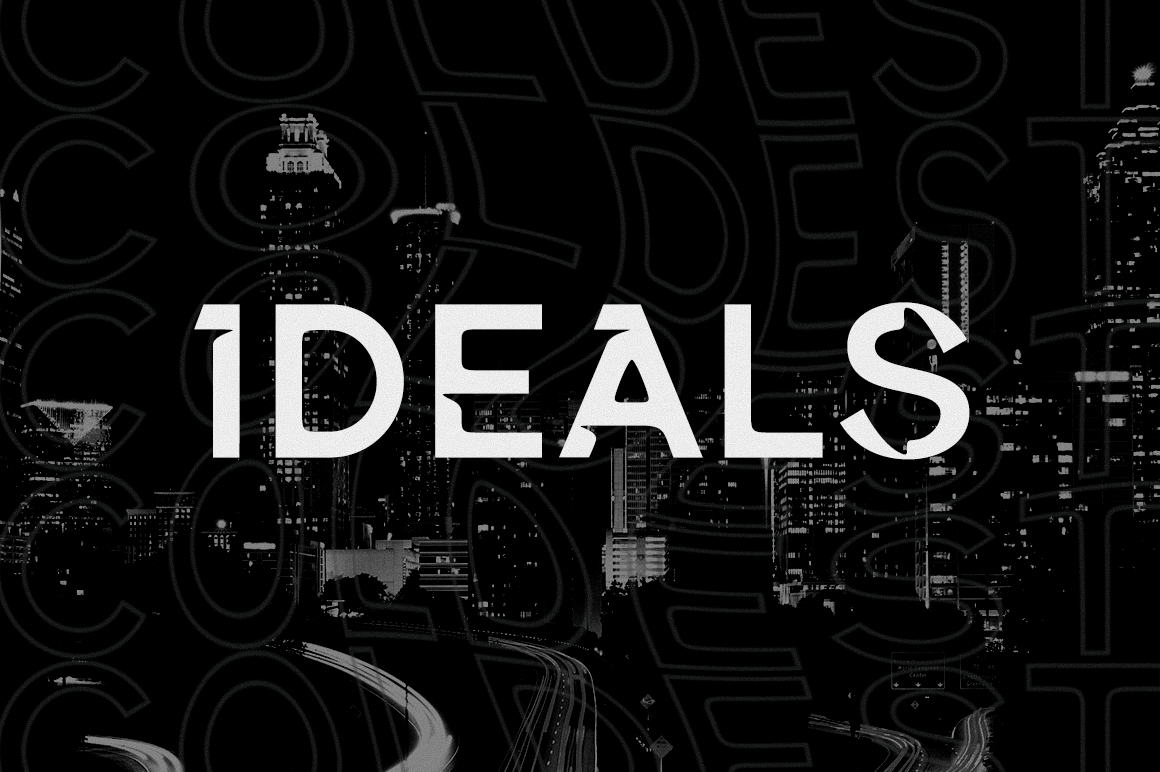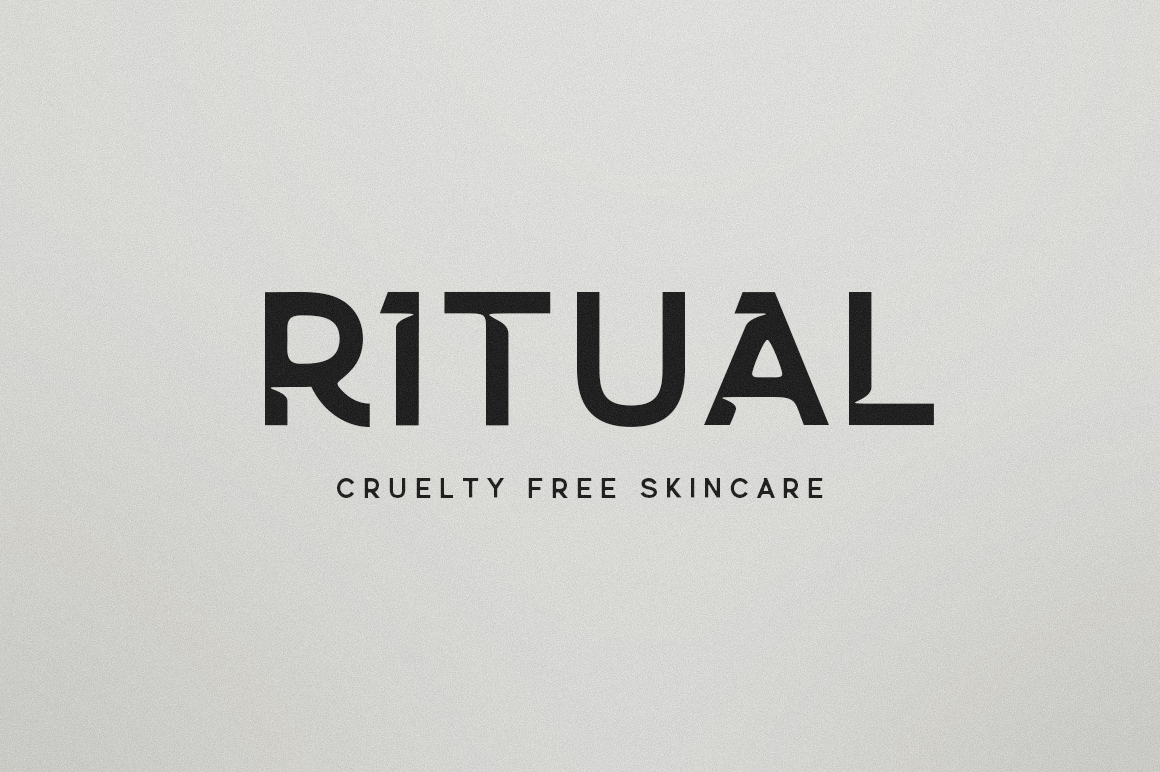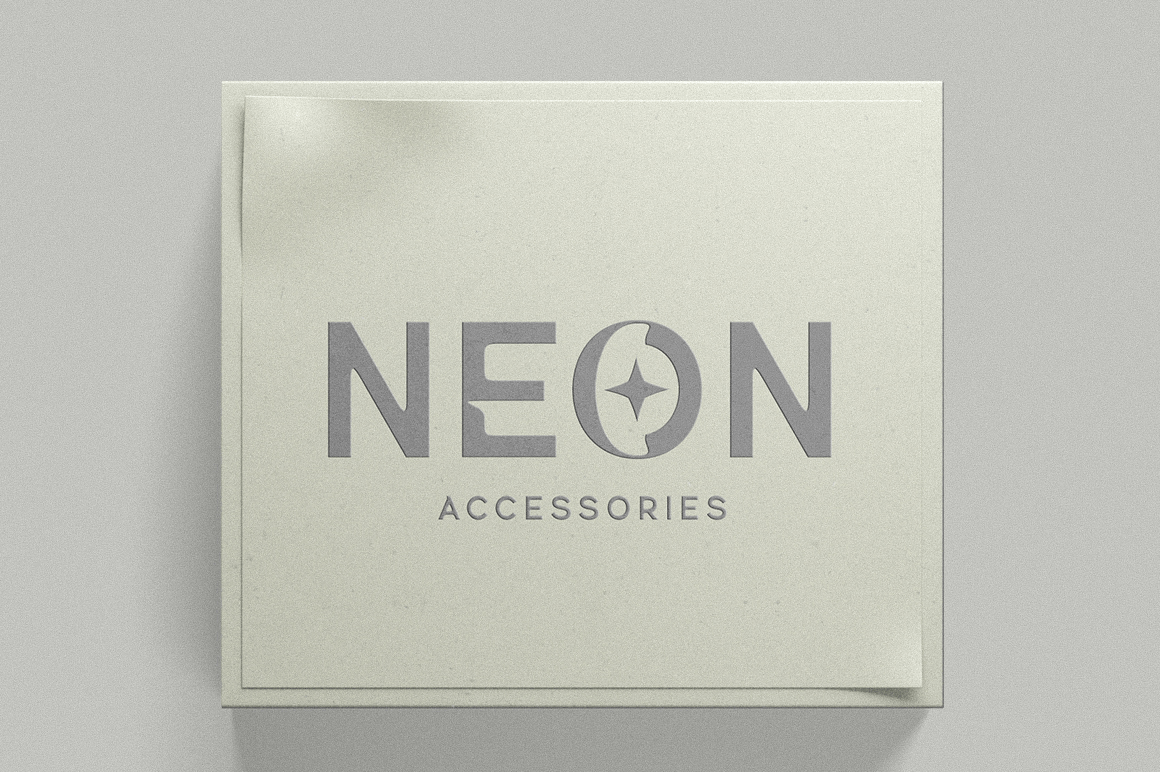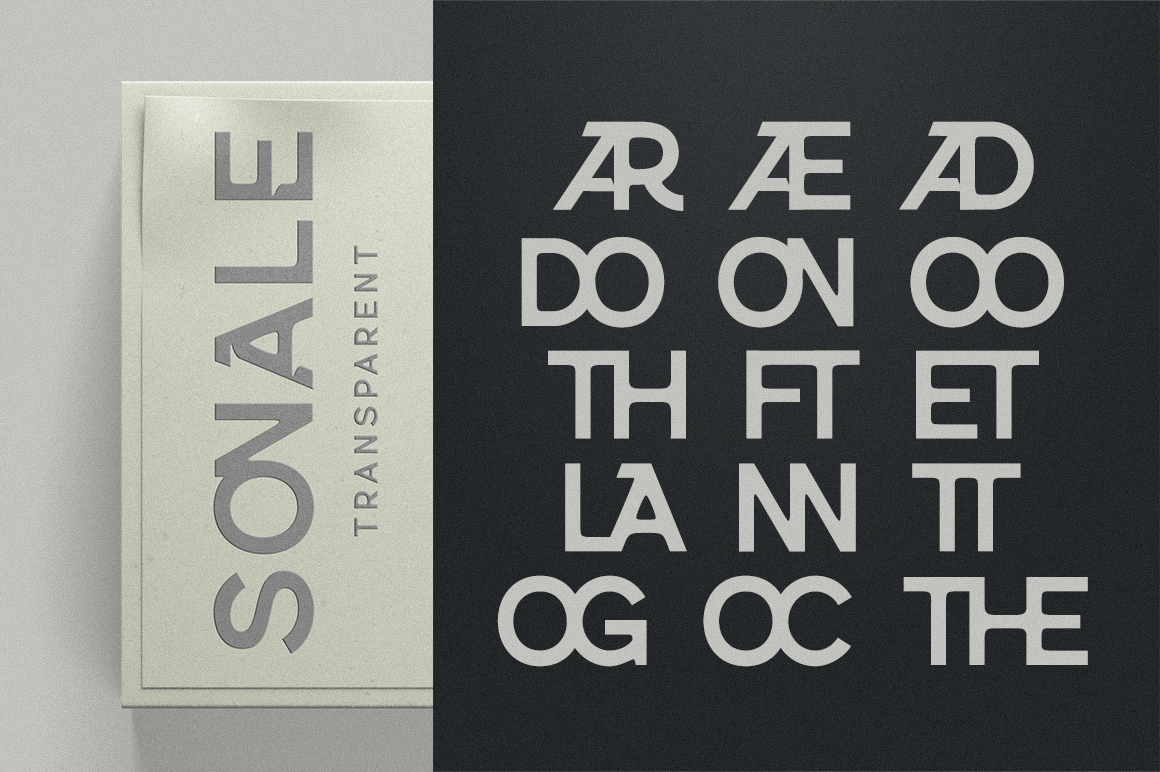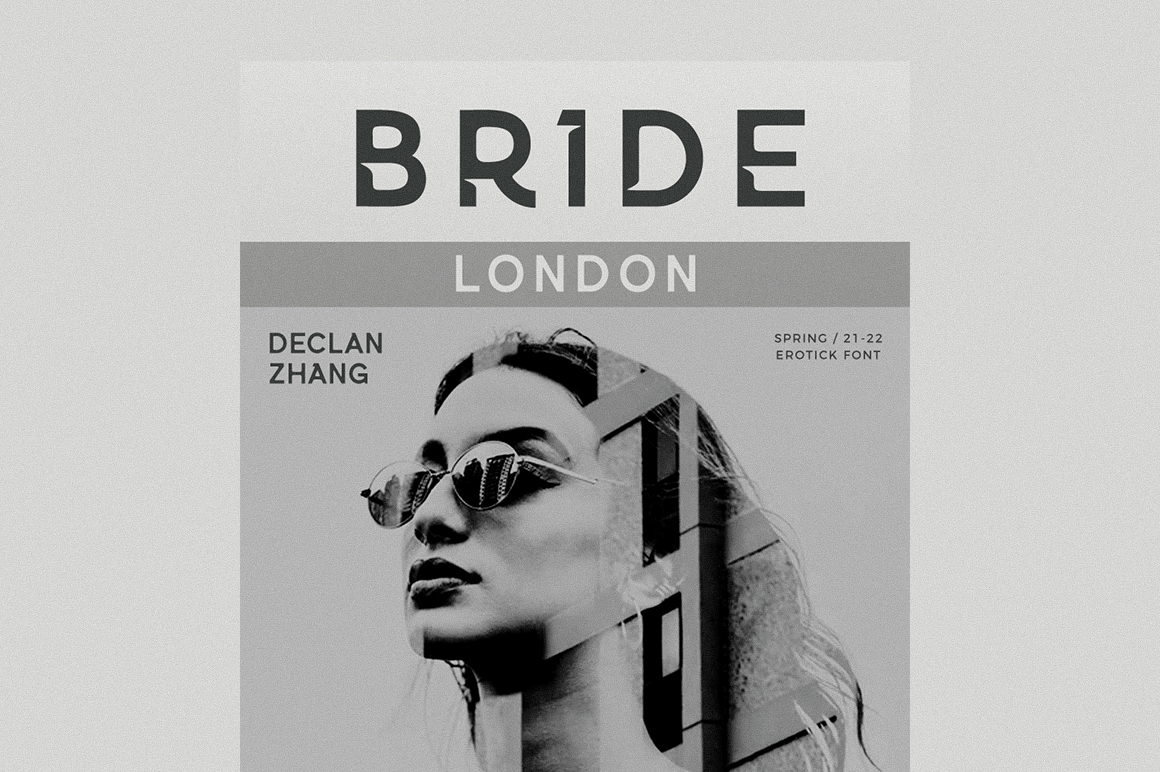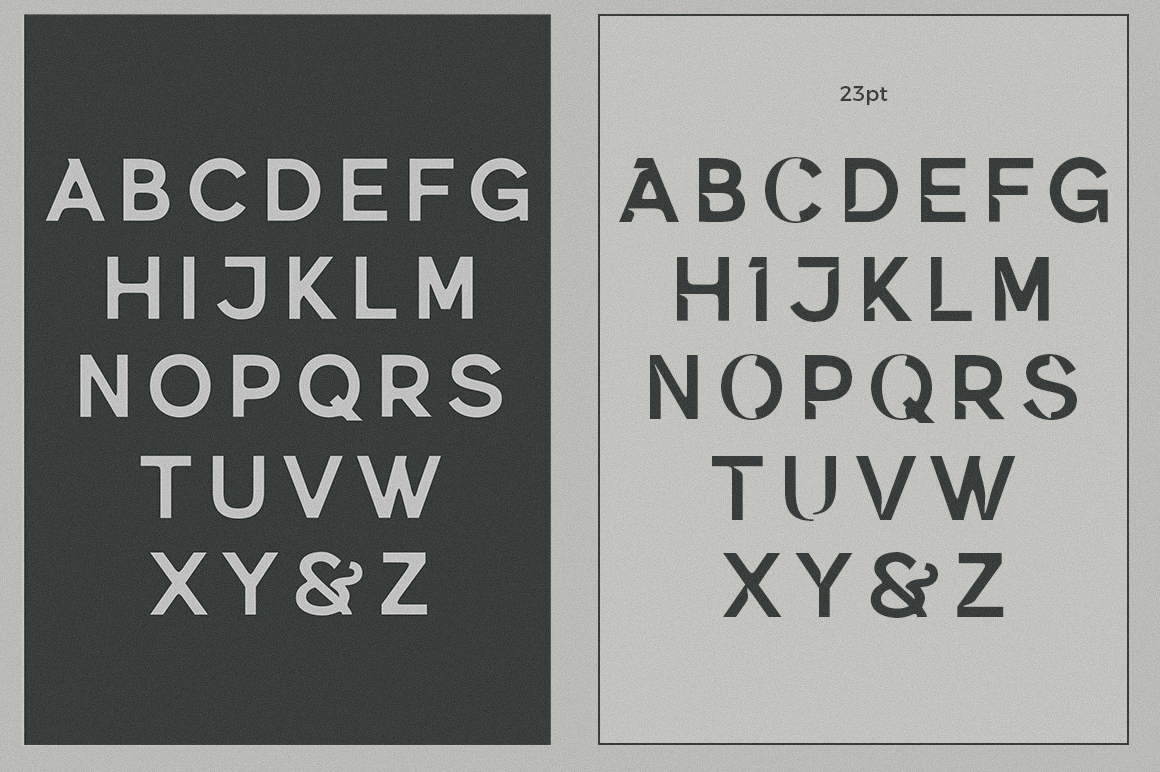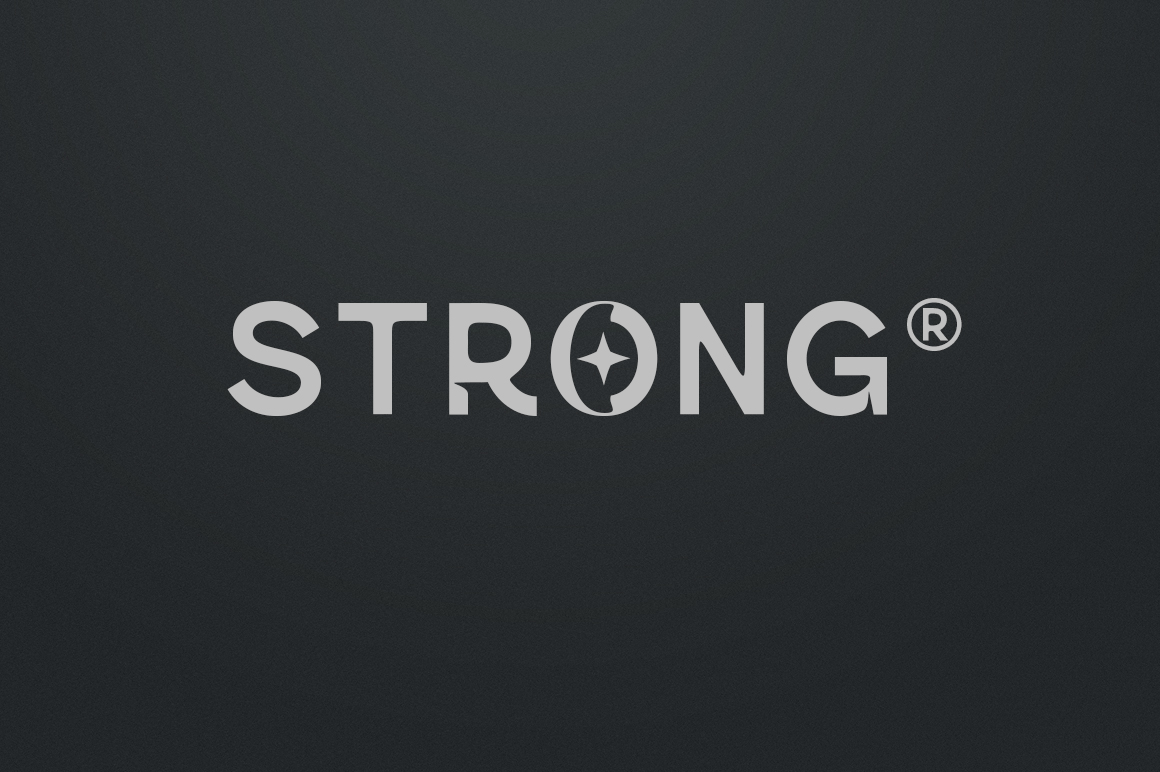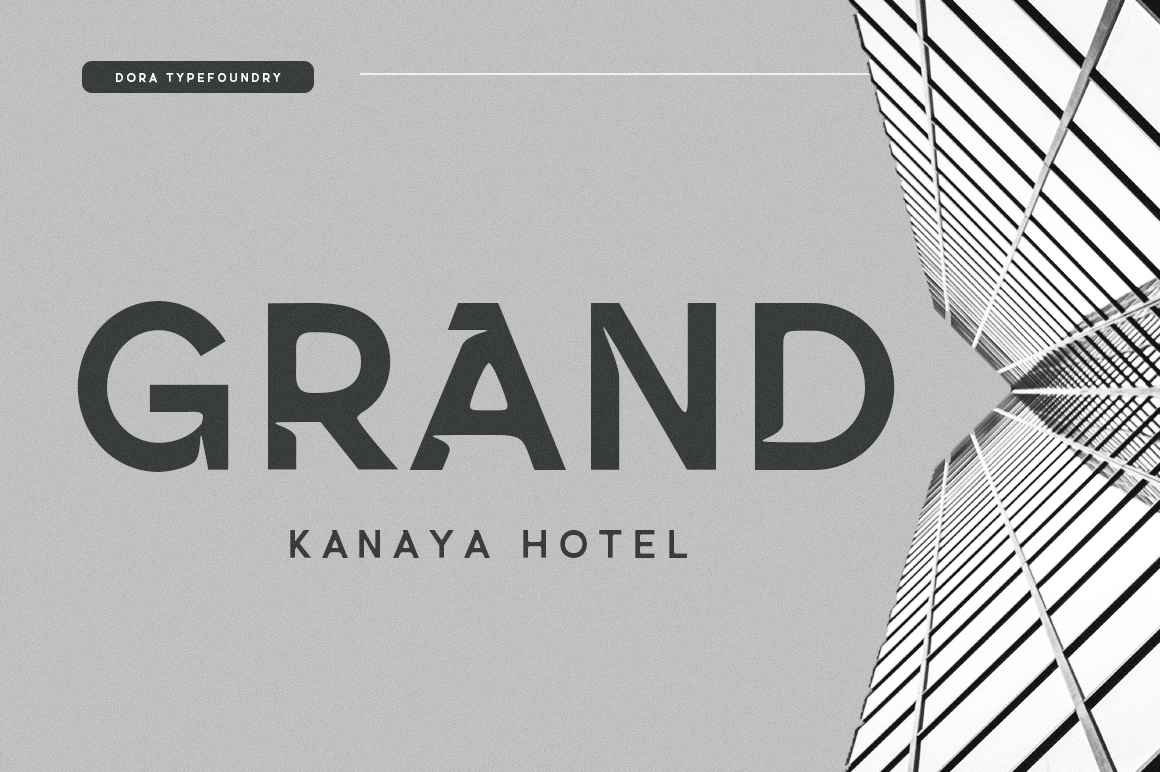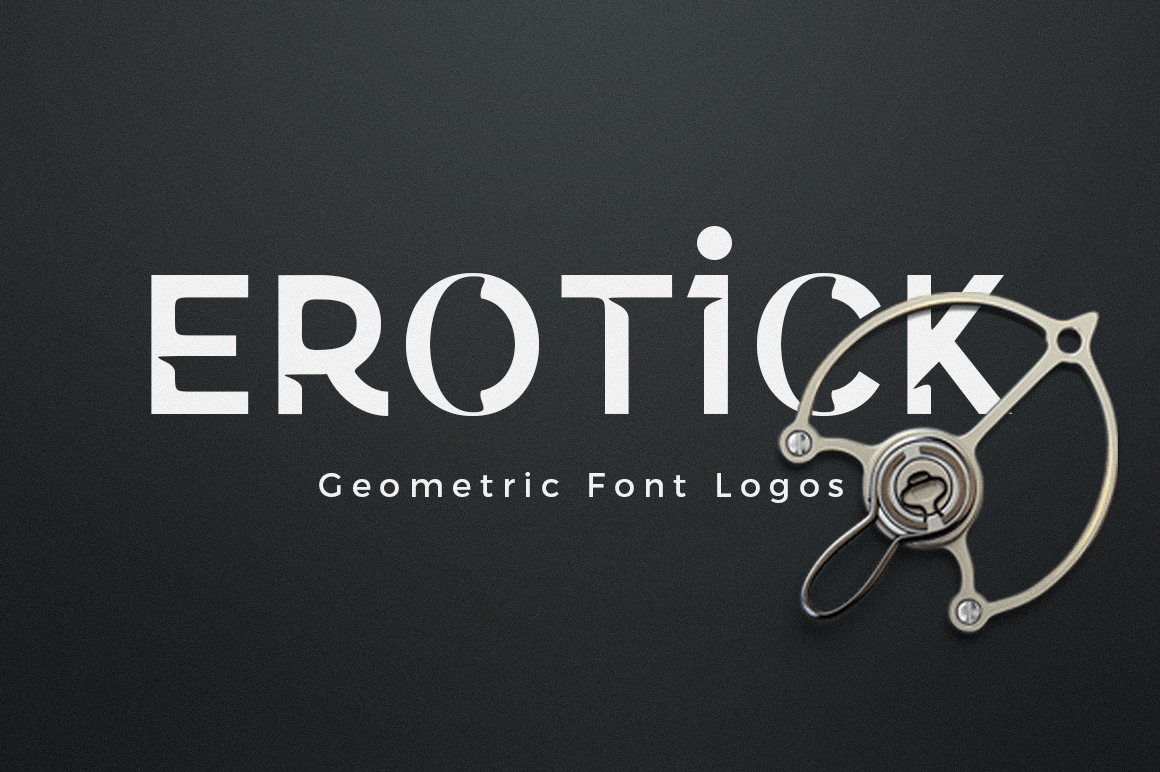
Erotick
About Erotick
Erotick is a new geometric font for a futuristic minimalist logo design, officially my favorite, with this pretty all-caps case it\’s very versatile and looks great in any context. You can match custom alternatives that will make your designs stand out…